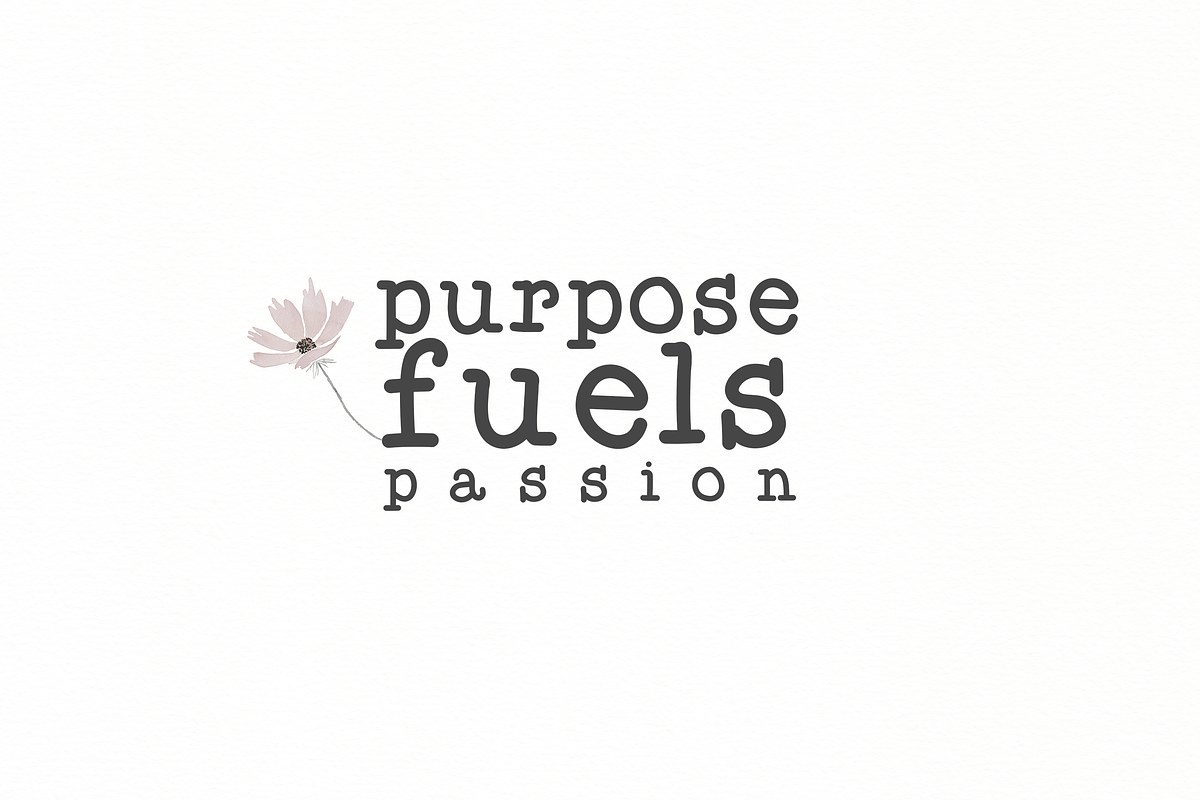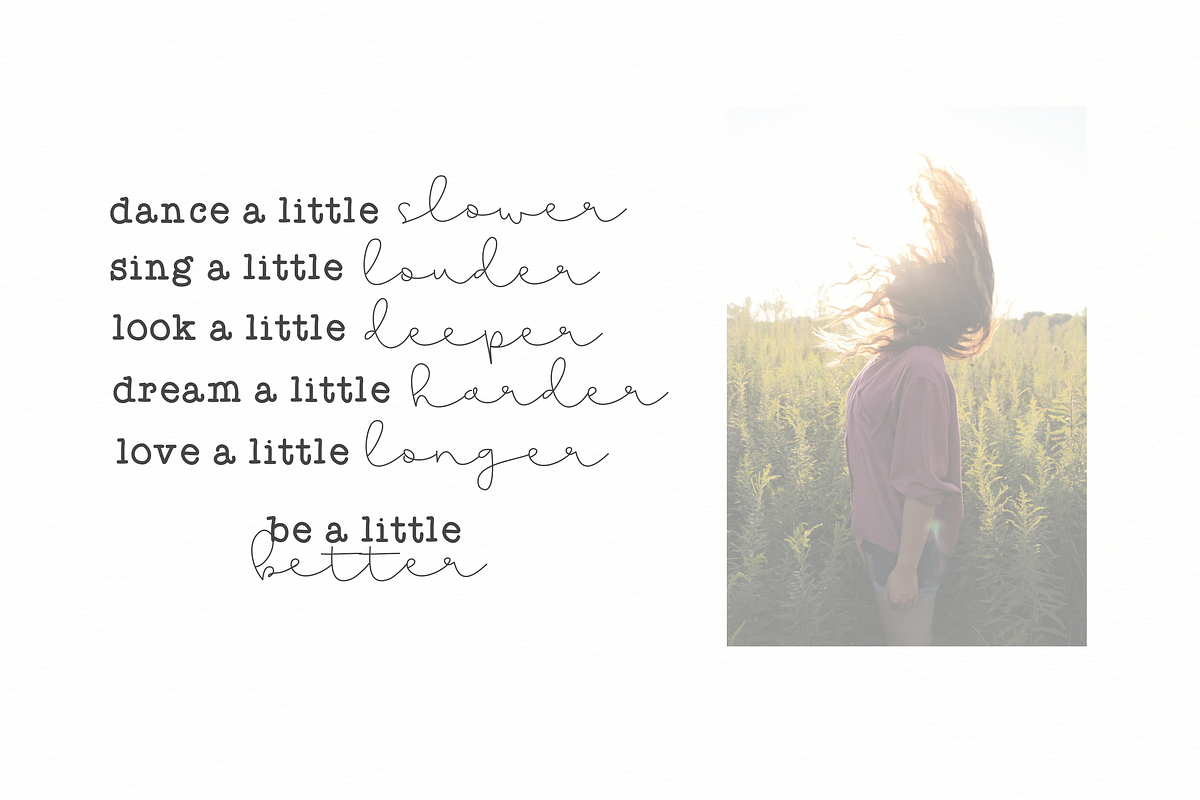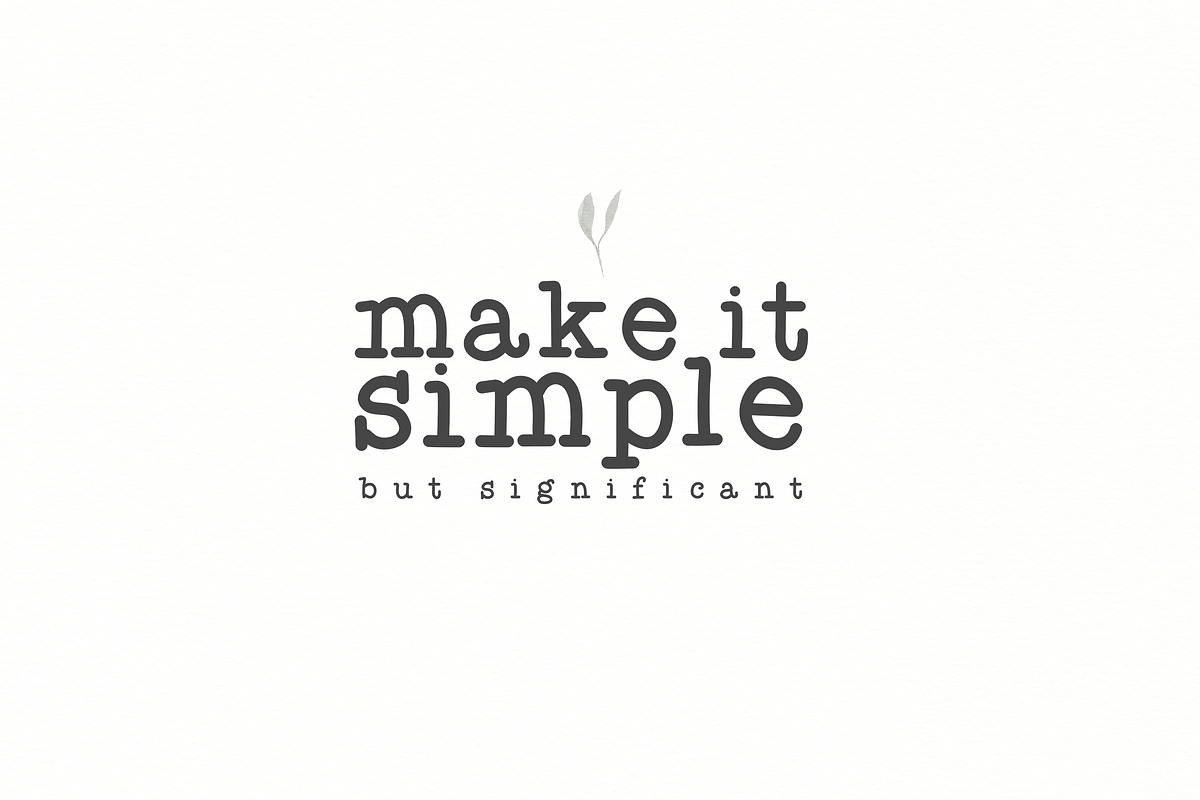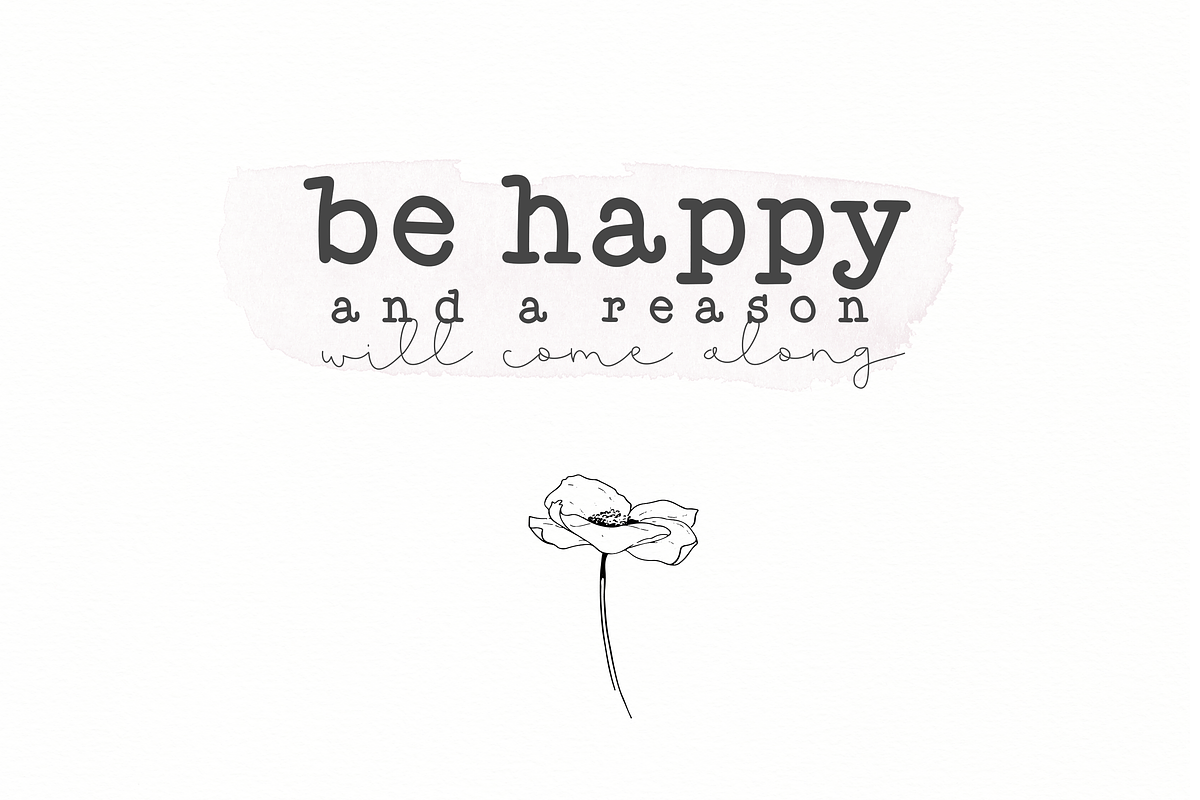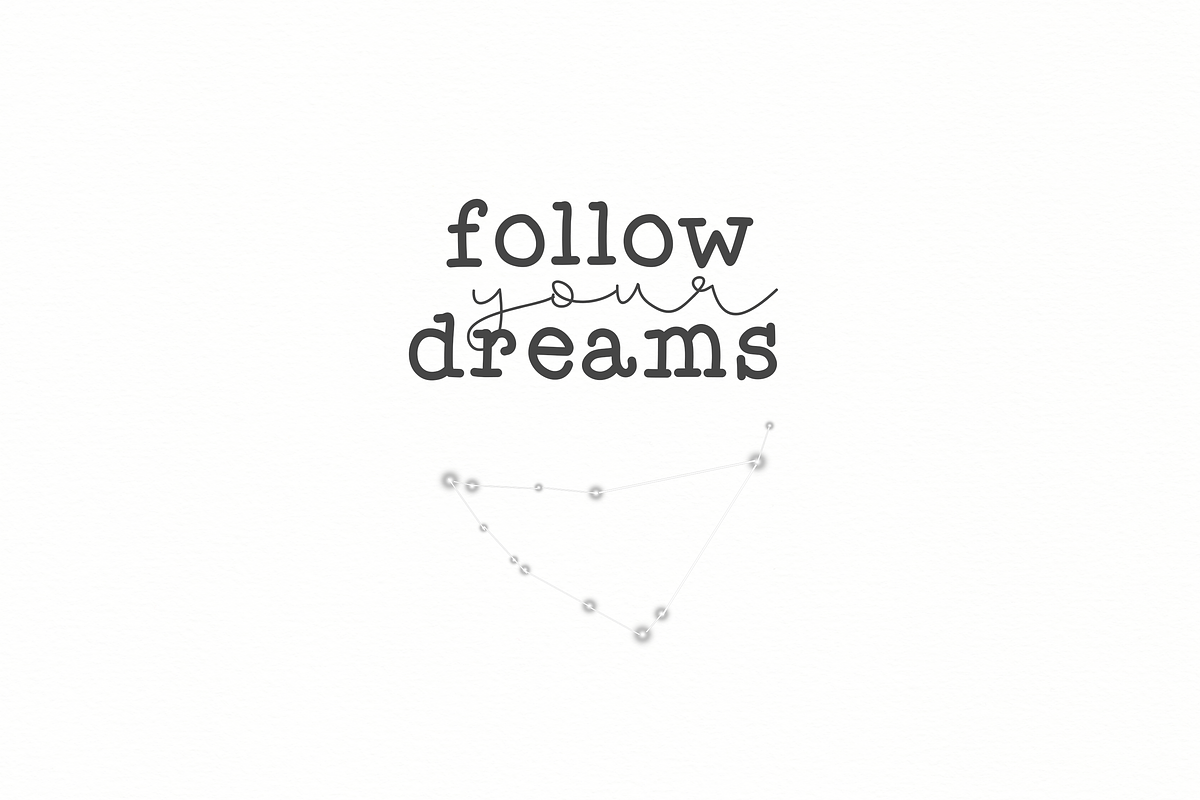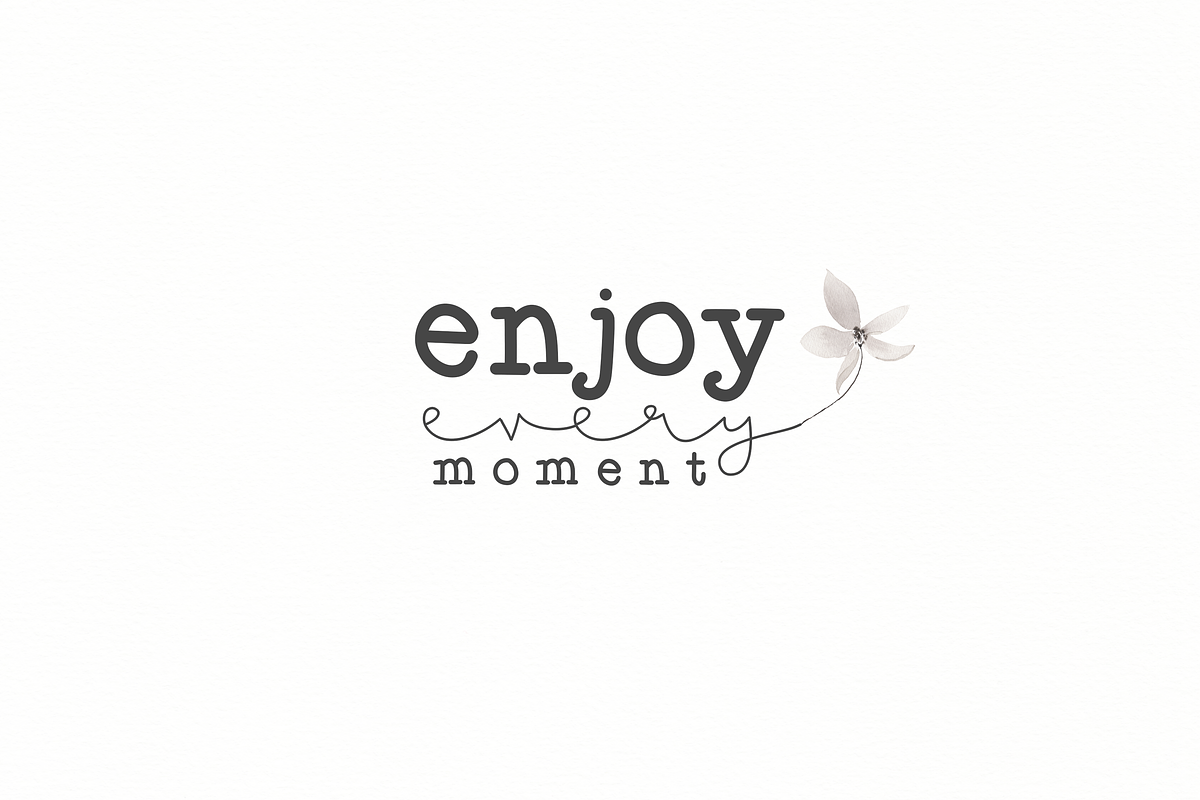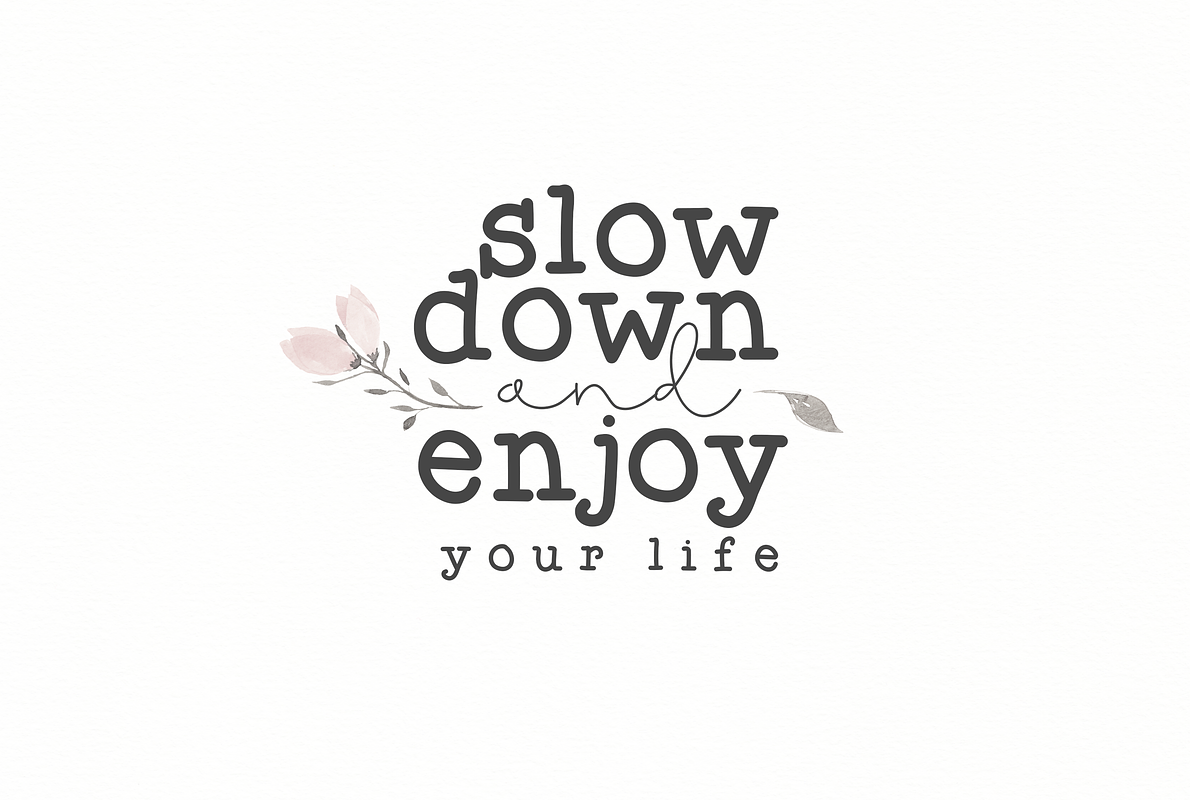
Effortless - Typewriter Font
Effortless is a handwritten font with a messy, typewriter look.
This font is perfect for quotes, headings, blogs, logos, invitations and more!
Effortless - Typewriter Font by KA Designs fits naturally into Branding, posters, packaging, typography.